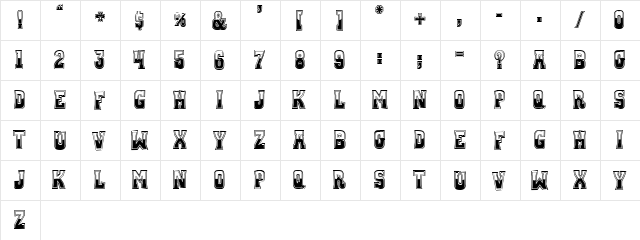
Whiskey Town Buzzed
| Foundry | Tom Kolter |
| Designer | Tom Kolter |
Design Context for Whiskey Town Typeface
Whiskey Town is a composed and adaptable typeface that performs quietly and consistently across a wide range of design contexts.